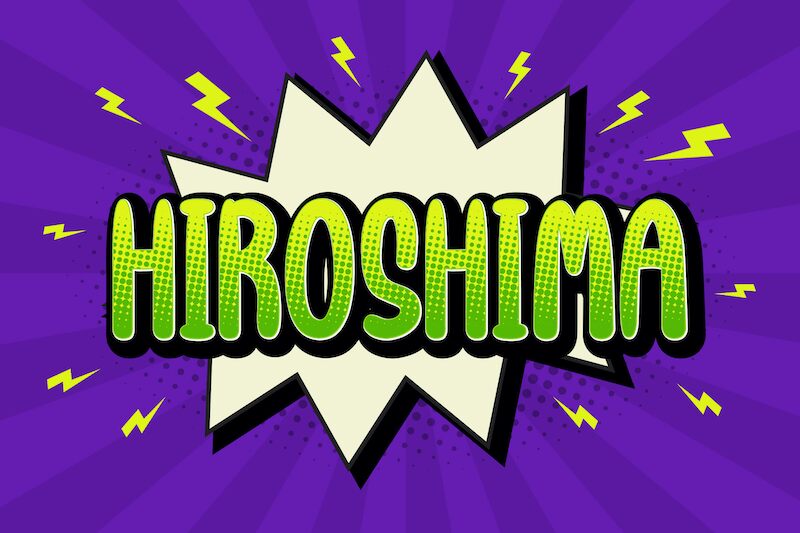
HIROSHIMA
Meet HIROSHIMA - the ultimate handwritten font designed by StringLabs Creative Studio. Its semi-light weight and condensed width make it perfect for projects that require a touch of elegance and sophistication, such as wedding invitations, luxury branding, or high-end product packaging. Whether you're creating a logo or designing a website, HIROSHIMA's unique handwritten style adds a personal touch to any project. With its sleek and modern design, this font will surely stand out among the rest. Get your hands on HIROSHIMA today and take your design game to the next level!